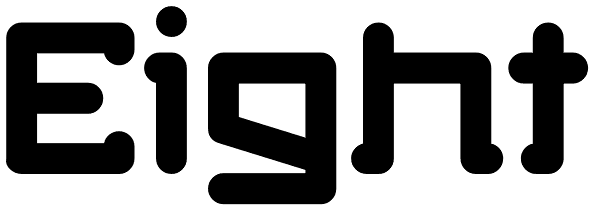
Eight
Eight was desinged to be heavily geometric. The main lines were intended to be entirely comprised of lines of eight different but set angles.
Eight Font